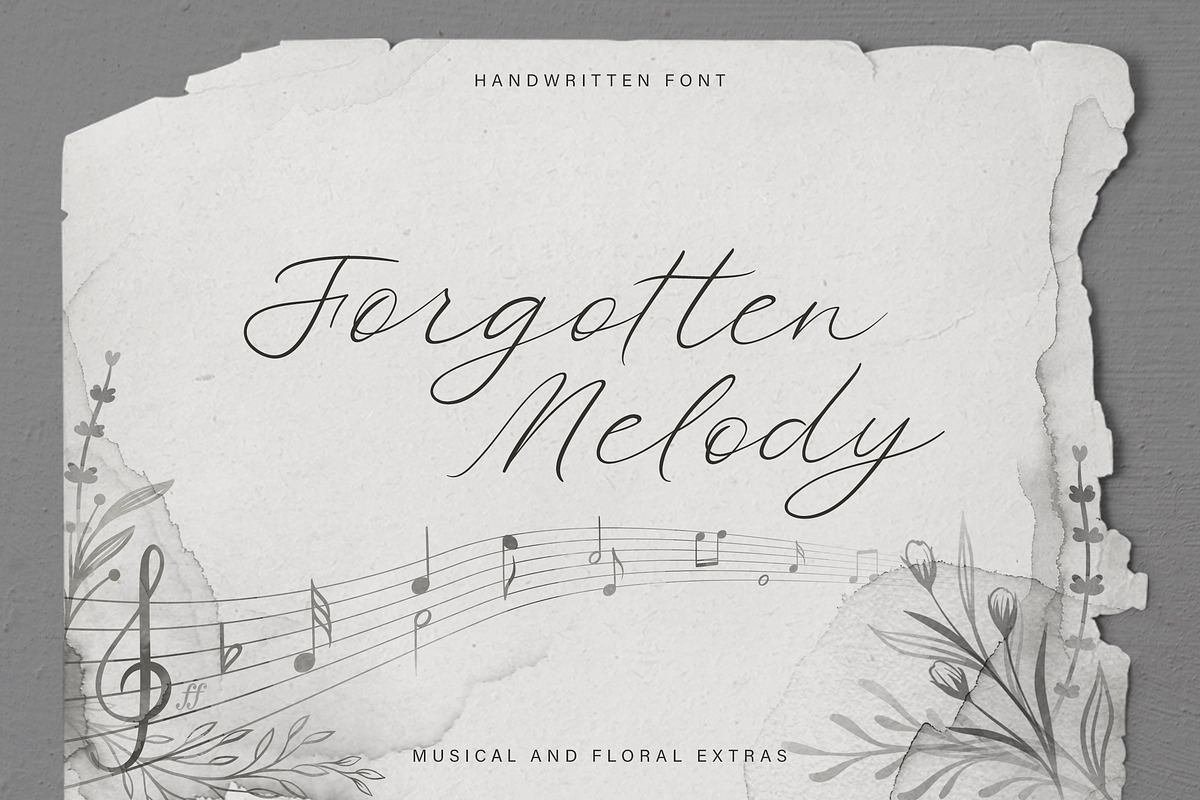
This nostalgic font is perfect for vintage music posters, album covers, retro branding, antique shop signage, historical documentaries, classic restaurant menus, heritage brand identities, and romantic wedding stationery. Its melodic character makes it ideal for projects that need to evoke memories, emotion, and timeless musical charm.
Forgotten Melody Font is exciting because it captures the essence of handwritten sheet music and vintage songbook typography from bygone musical eras. The font features flowing curves and rhythmic letterforms that mirror the natural cadence of musical notation, creating an organic harmony between text and melody. Its authentic vintage character transports viewers to classic concert halls and intimate musical gatherings.
The Forgotten Melody Font family typically includes regular and ornate weights, along with decorative musical symbols, flourishes, and vintage ornaments. Many versions feature stylistic alternates and ligatures that enhance the musical flow and period authenticity of the design.
Whether you're designing for music festivals, vintage record labels, or nostalgic entertainment venues, Forgotten Melody Font Free Download provides authentic musical heritage with contemporary functionality. This typeface transforms ordinary text into lyrical expressions that resonate with music lovers and vintage enthusiasts alike. Its distinctive personality adds emotional depth to any project while maintaining excellent readability, making it an invaluable resource for designers who specialize in music-related, entertainment, or nostalgic projects that celebrate the timeless power of melody and the golden age of musical typography.